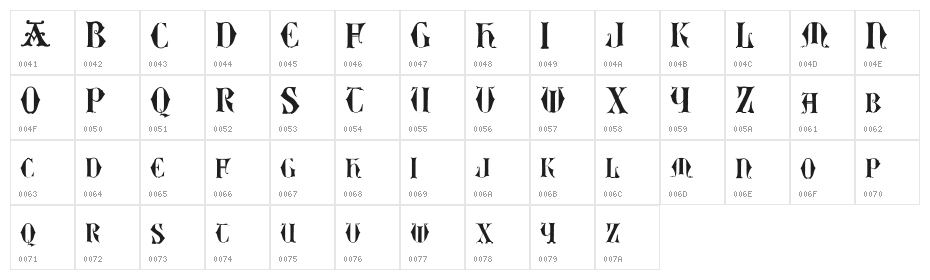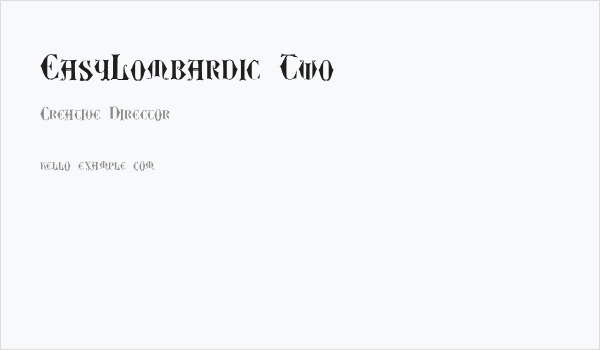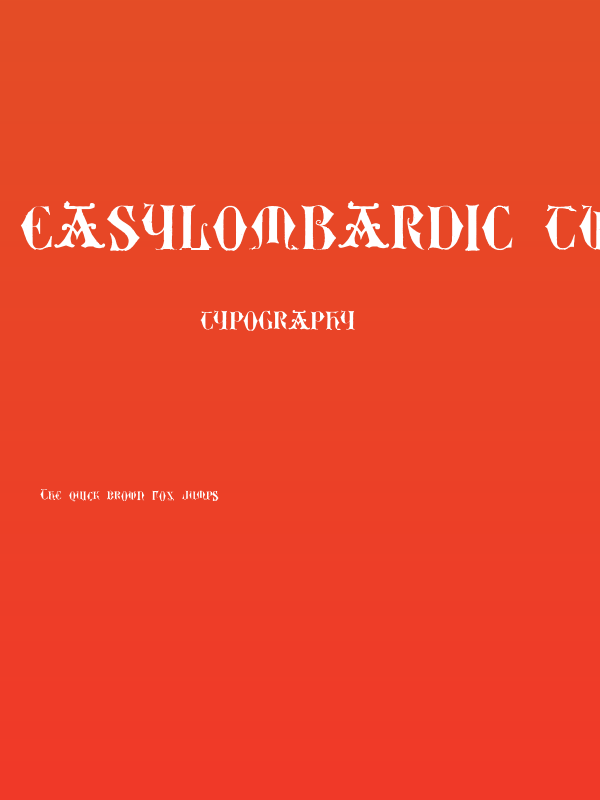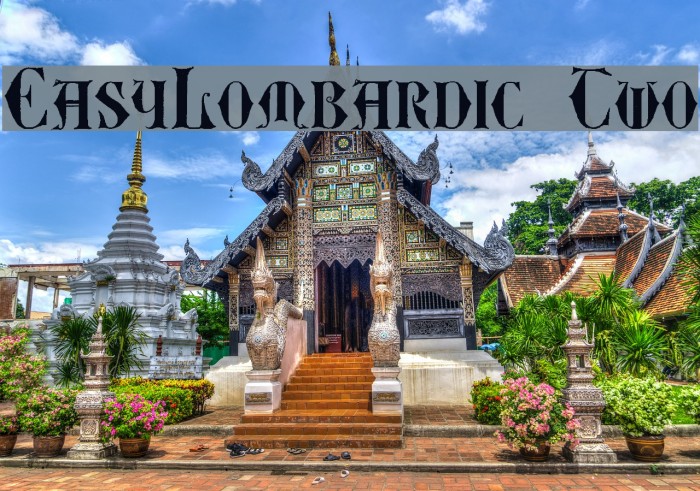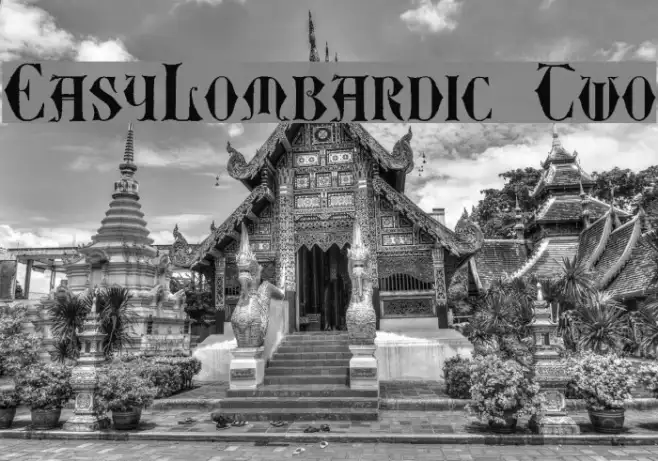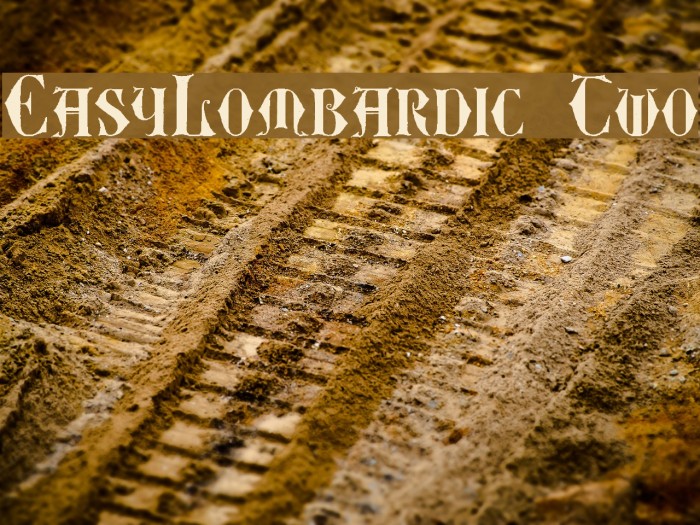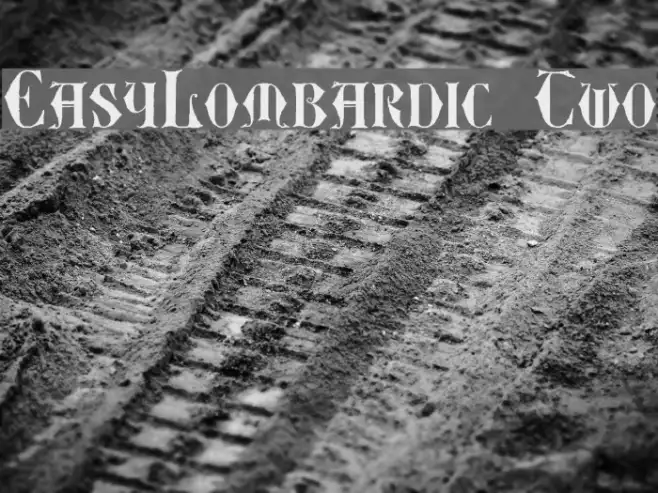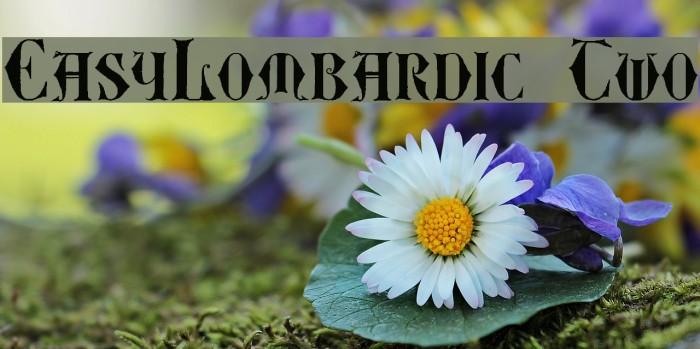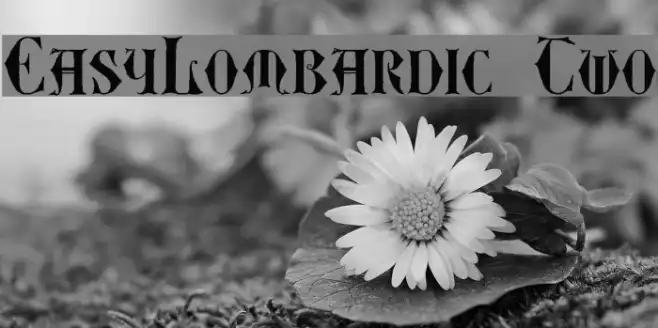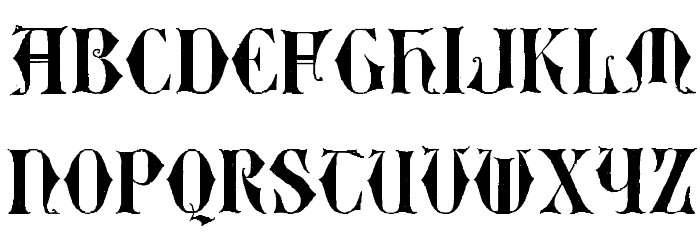
EasyLombardic Two Font
EasyLombardic Two Description
This font exhibits a distinct medieval style, characterized by its ornate and intricate design. The letters are bold and feature sharp, angular strokes with decorative elements, reminiscent of Gothic script. The uppercase letters are particularly elaborate, with flourishes and embellishments that give them a regal and historical appearance. The font's overall aesthetic is both dramatic and elegant, making it suitable for projects that require a touch of antiquity and sophistication.
| Use Case | Headlines, Logos, Decorative text |
| Proposed Projects | Ideal for historical documents, fantasy-themed designs, book covers, and decorative invitations. |